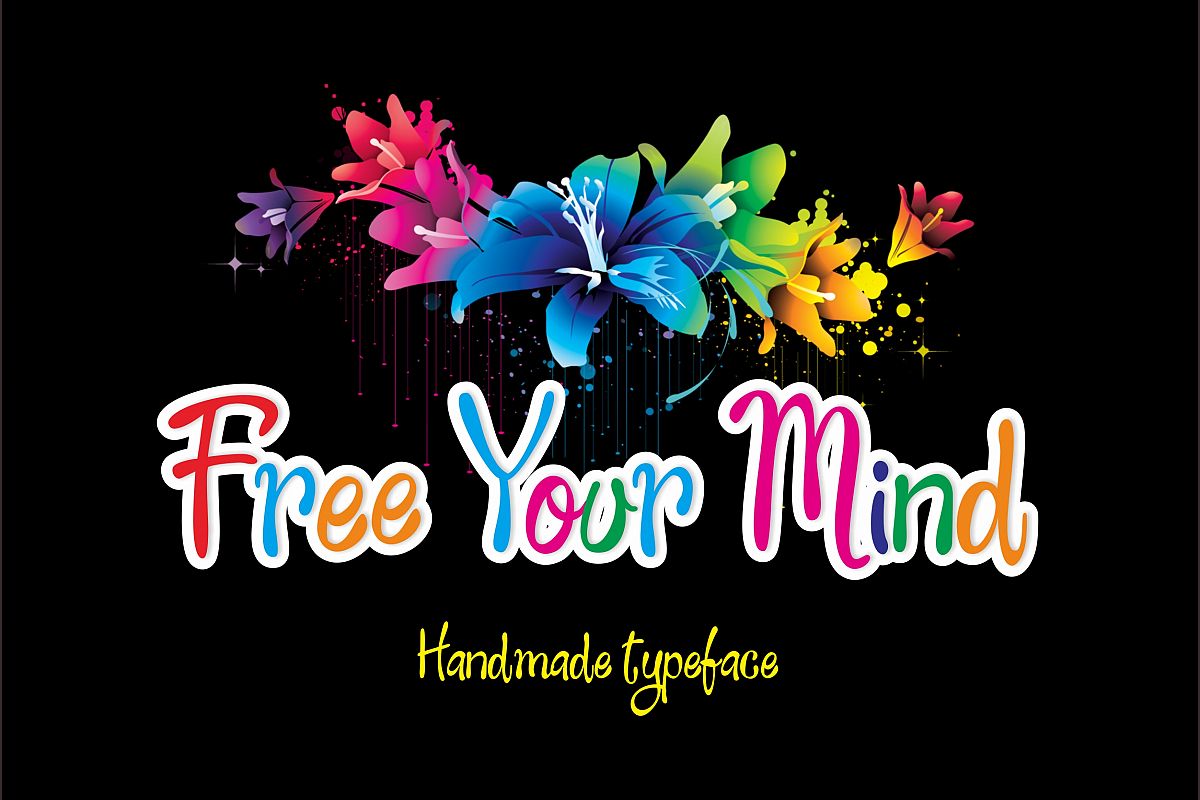
Free Your Mind
Free Your Mind comes with upper and lowercase characters, punctuation glyphs, numerals. Stylistic sets for several key lower case characters are also available. Perfect for logo marks, typographic quotes over photos, book covers and packaging design.Also supports in program, Adobe IllustratorCS, Adobe IllustratorCc, Adobe Photoshop, Adobe InDesign, Corel Draw X version, Microsoft WordFile include: